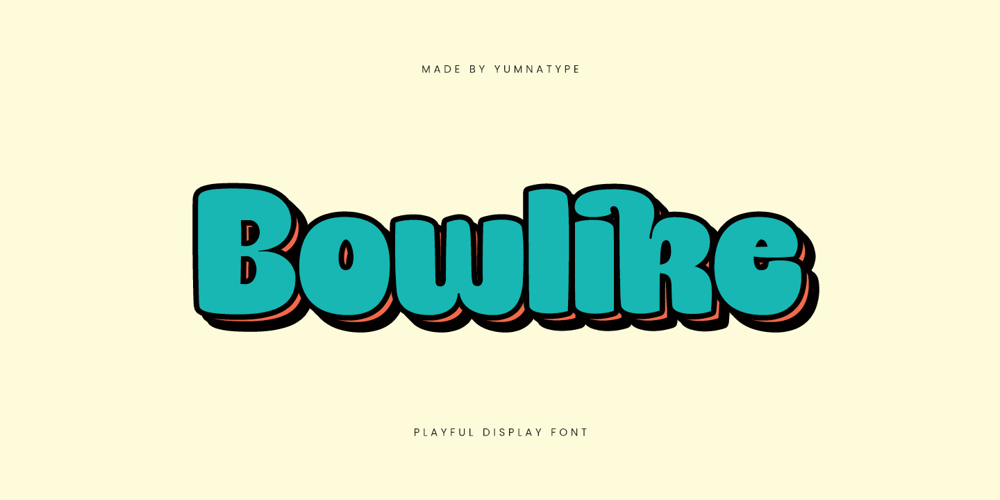
Bowlike
Bowlike font
Bowlike Font Family was designed by Donis Miftahudin and published by Yumna Type. Bowlike contains 1 styles and family package options. Bowlike is a captivating display font designed to infuse your projects with a playful spirit. The playful style of Bowlike is evident in its cheerful and dynamic letterforms. Each character is crafted to evoke a sense of fun and creativity. The bold weight of the font ensures that your text commands attention.Despite its bold weight, Bowlike maintains a low contrast between the thick and thin strokes, giving it a smooth and cohesive look. This balance ensures that the font is easy to read while still delivering a powerful visual impact. In addition, enjoy the features here.Features: Ligatures Multilingual Supports PUA Encoded Numerals and Punctuations Bowlike fits in headlines, logos, posters, flyers, branding materials, print media, editorial layouts, and many more designs. Find out more ways to use this font by taking a look at the font preview.Thanks for purchasing our fonts. Hopefully, you have a great time using our font. Feel free to contact us anytime for further information or when you have trouble with the font. Thanks a lot and happy designing.